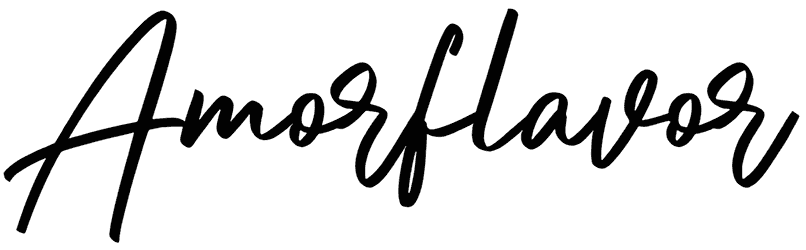
Amorflavor Font
Unleash your creative potential and make an astonishing layout. Amorflavor can be a perfect font for signatures, logos, business cards, or wherever you consider. Just keep in mind that this handwritten font doesn’t include numbers.
Tap on the download button and inspire your clients at a glance. Since it’s a little bit illegible, you better use it for short lines. Couldn’t get enough? Discover our website now.